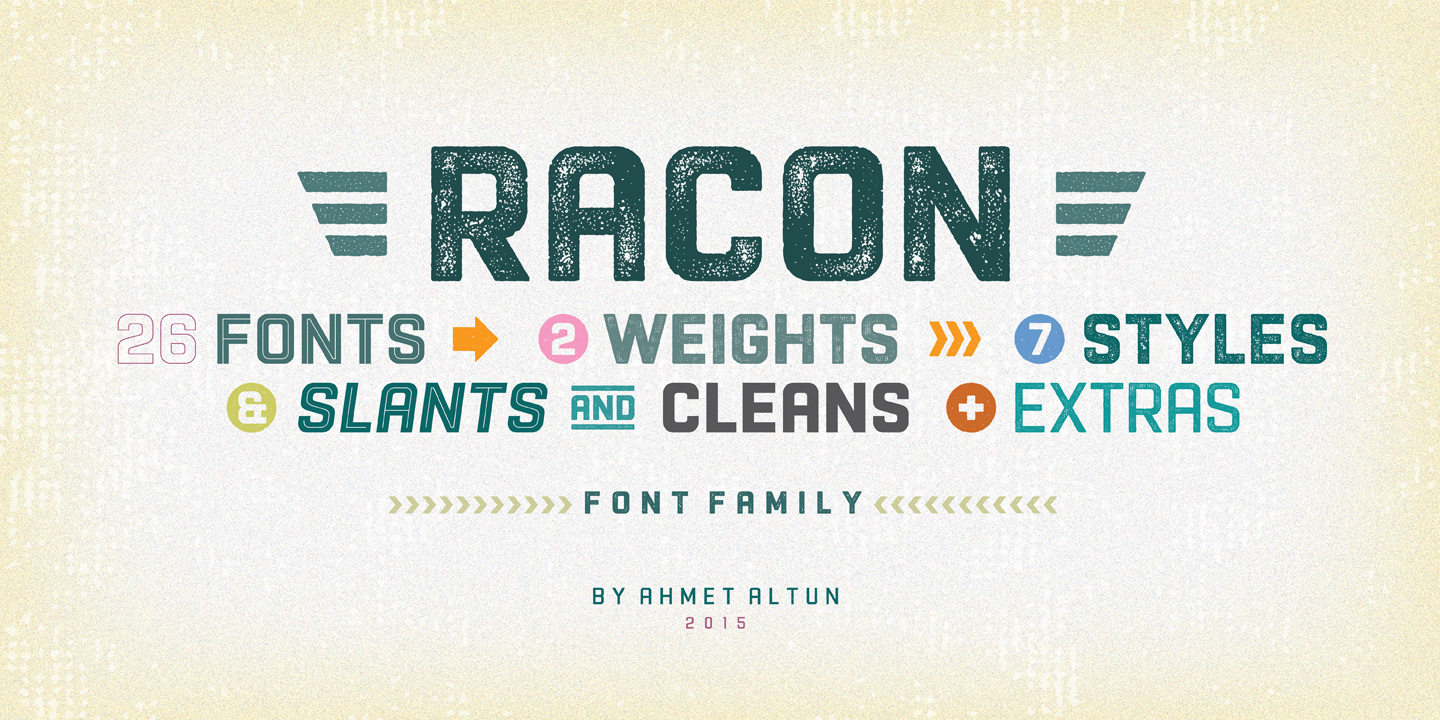
Racon Font excels in numerous design applications including industrial branding, technical documentation, engineering reports, architectural drawings, scientific publications, digital interfaces, automotive design, aerospace communications, manufacturing signage, and precision instrument labeling. Its technical character makes it perfect for industries requiring clarity and professional reliability.
What makes Racon Font so exciting is its exceptional clarity and technical precision, featuring engineered letterforms, optimal spacing, and systematic design that creates professional credibility while maintaining excellent readability across technical applications. The font's structured aesthetic conveys expertise and reliability, making it ideal for technical organizations seeking to establish authority and precision.
The Racon Font family includes comprehensive weight variations: Light, Regular, Medium, Bold, Black, and their corresponding condensed versions, plus monospaced and technical symbol sets. Each family member maintains consistent technical relationships while offering different levels of emphasis, providing designers with extensive typographic flexibility for complex technical communications.
This exceptional typeface represents the perfect synthesis of technical design requirements and contemporary functionality, making Racon Font Free Download an essential tool for technical designers. The font's precise characteristics work exceptionally well in engineering environments where accuracy, clarity, and professional presentation are fundamental considerations.
Racon Font supports extensive technical character sets including engineering symbols, mathematical notation, scientific characters, and international standards compliance. Its advanced OpenType features ensure professional typography standards across technical documentation and multilingual engineering applications worldwide.
Professional designers choose Racon Font for its reliability in technical communications, engineering documentation, and industrial branding projects. The font's systematic nature makes it particularly effective for manufacturing companies, engineering firms, technology corporations, and research institutions where precision and technical expertise are essential.
The font's technical sophistication and systematic design make it particularly suitable for aerospace companies, automotive manufacturers, engineering consultancies, research laboratories, and industrial corporations. Its precise appeal ensures communications maintain technical credibility and professional authority across evolving industry standards.